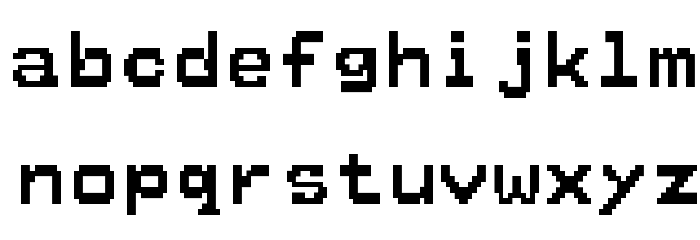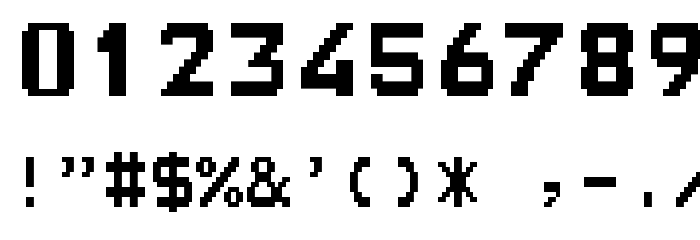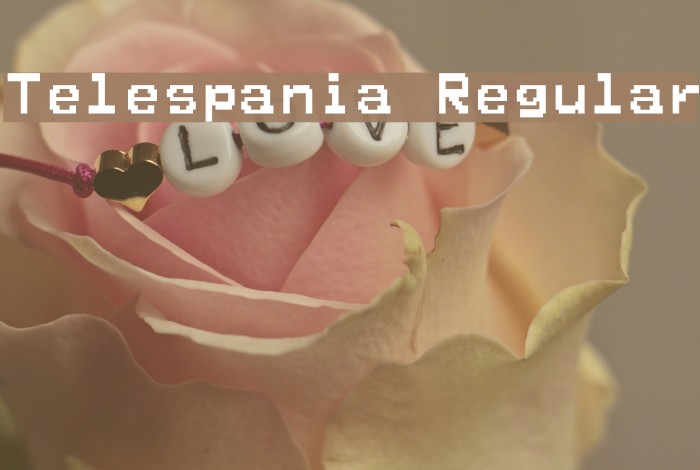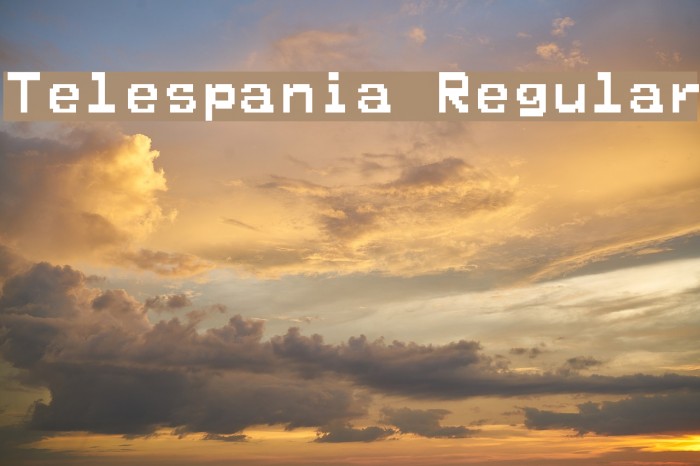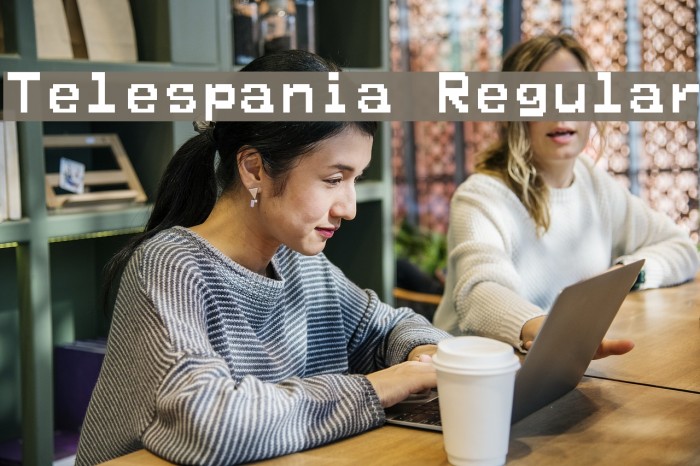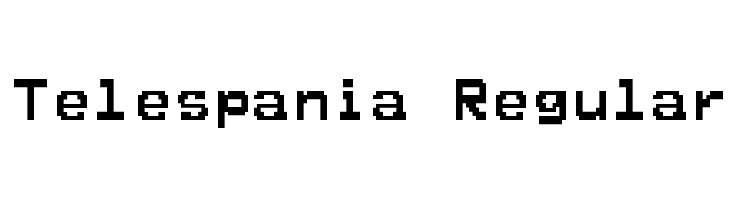
Telespania Regular Font
This font features a pixelated, blocky design reminiscent of early digital displays and video games. Each character is composed of uniform square pixels, giving it a distinctly retro and digital aesthetic. The uppercase and lowercase letters maintain a consistent height and width, contributing to a monospaced appearance. The numerals and special characters follow the same pixelated style, ensuring uniformity across the character set. This design is ideal for projects that aim to evoke nostalgia for 8-bit or 16-bit graphics, or for any digital-themed design work.
A pixelated, retro-style font with a blocky, digital appearance.
- Proposed Projects: Ideal for retro video game designs, digital art projects, tech-themed posters, and nostalgic branding.
- Overall Style: Retro, Digital
- Use Case: Logos, Headlines, Digital Art